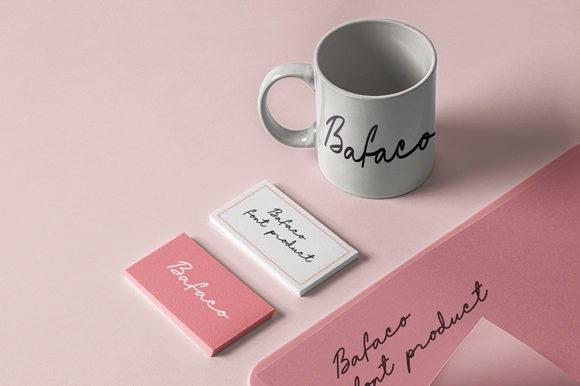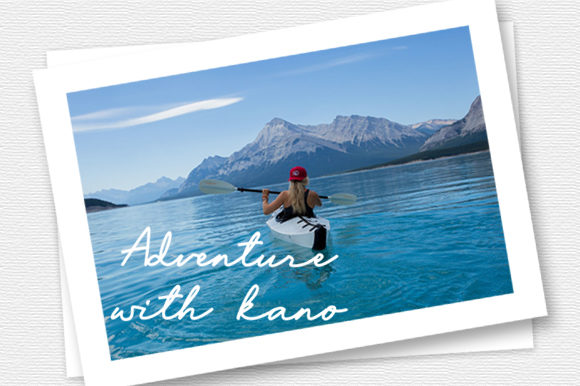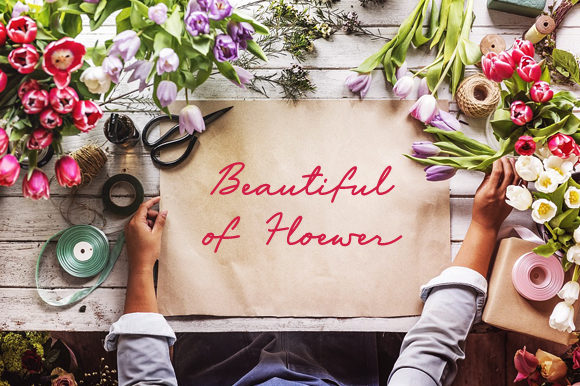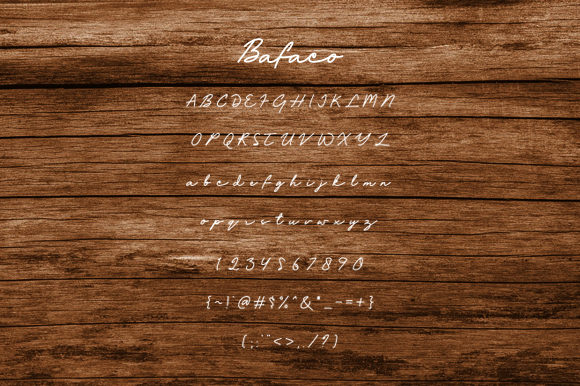
HomeScript FontsBafaco Font Script Fonts Bafaco Font FacebookXPinterestWhatsApp Bafaco Font Poster 2 Bafaco Font Poster 3 Bafaco Font Poster 4 Bafaco Font Poster 5 About Bafaco Font Bafaco is a timeless script with a unique charm. It will turn any design idea into a piece of art! DOWNLOAD ON CREATIVE FABRICAThis font is sold and delivered by Creative Fabrica. Font Canyon may earn a commission if you buy through this link. People also explored Dellyssion Font Manahati Font Rabbis Carrot Font Gritstomper Filmotype Jamboree Awendela Beloved Font Rosealya Font Eva and Adam Font Stint Pro 392 0 TagsBafaco Font Previous articleHugbirds FontNext articleThumbelina Font LEAVE A REPLY Cancel reply Comment: Please enter your comment! Name:* Please enter your name here Email:* You have entered an incorrect email address! Please enter your email address here Website: Save my name, email, and website in this browser for the next time I comment. Personal Use Free Indonesia Dermawan Personal Use Free Read more about this font Beat My Guest Personal Use Free Read more about this font Shawaki Personal Use Free Read more about this font Vanilla Whale Personal Use Free Read more about this font BLOG Top 7 Google Fonts Alternatives for Faster and Privacy-Friendly Web Design (2025) Top 7 Google Fonts Alternatives for Faster and Privacy-Friendly Web Design (2025) When it comes to web typography, Google Fonts has long been the go-to... Best Fonts for T-Shirt Design – Top 2025 Picks Where to Buy American Fonts Online in 2024 Modern Sans-Serif Fonts That Brands Love in 2025